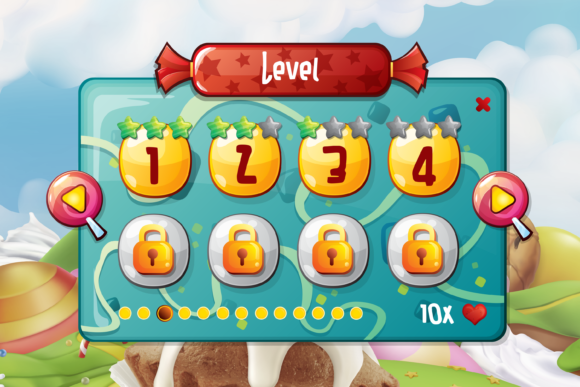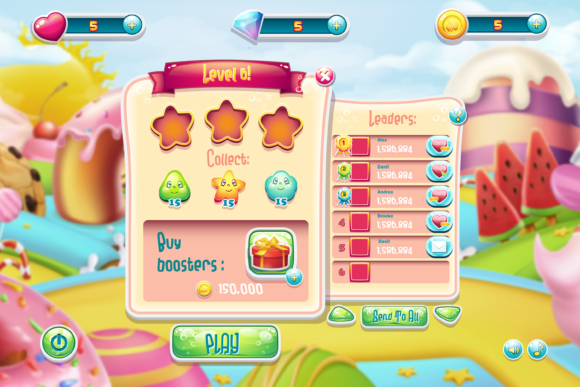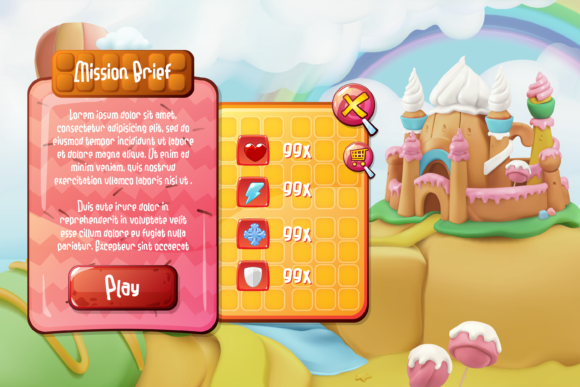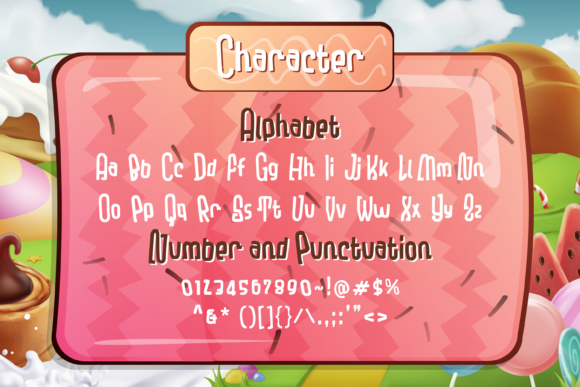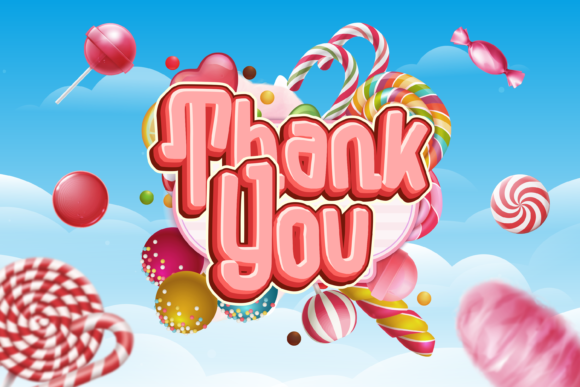
Introducing Funny Happy Font: The Ultimate Choice for Playful Designs
Are you tired of using the same old fonts for your designs? Do you want to add a touch of playfulness and authenticity to your projects? Look no further than the Funny Happy Font! This cute and fun display font is perfect for any children activity or school project, and is sure to make your designs come alive.
What is Funny Happy Font?
Funny Happy Font is a chunky lettered font that embodies playfulness and authenticity. Its unique and quirky design makes it stand out from other fonts, and its friendly vibe is sure to appeal to kids and adults alike. Whether you’re designing a poster, a worksheet, or a craft project, Funny Happy Font is the perfect choice.
Characteristics of Funny Happy Font
So, what makes Funny Happy Font so special? Here are just a few of its key characteristics:
- Playful design: Funny Happy Font has a fun and playful design that’s perfect for kids’ projects and activities.
- Chunky letters: The font features chunky letters that are easy to read and fun to look at.
- Authentic feel: The font has an authentic feel that’s sure to appeal to kids and adults alike.
- Versatile: Funny Happy Font can be used for a wide range of projects, from posters and worksheets to craft projects and more.
Uses for Funny Happy Font
So, what can you use Funny Happy Font for? The possibilities are endless! Here are just a few ideas to get you started:
- Kids’ activities: Funny Happy Font is perfect for kids’ activities, such as coloring pages, worksheets, and puzzles.
- School projects: The font is also great for school projects, such as posters, presentations, and reports.
- Craft projects: Funny Happy Font can be used for craft projects, such as card making, scrapbooking, and more.
- Party decorations: The font can even be used to create fun and playful party decorations, such as banners and signs.
Why Choose Funny Happy Font?
So, why should you choose Funny Happy Font for your designs? Here are just a few reasons:
- Unique design: Funny Happy Font has a unique and quirky design that’s sure to stand out from other fonts.
- Easy to read: The font is easy to read, even for kids and people with visual impairments.
- Fun and playful: The font has a fun and playful vibe that’s sure to appeal to kids and adults alike.
- Versatile: Funny Happy Font can be used for a wide range of projects and applications.
In conclusion, Funny Happy Font is a fun and playful display font that’s perfect for any children activity or school project. Its unique and quirky design makes it stand out from other fonts, and its friendly vibe is sure to appeal to kids and adults alike. Whether you’re a designer, crafter, or teacher, Funny Happy Font is a great choice for adding a touch of playfulness and authenticity to your designs. So why wait? Download Funny Happy Font today and start creating fun and playful designs that will delight kids and adults alike!